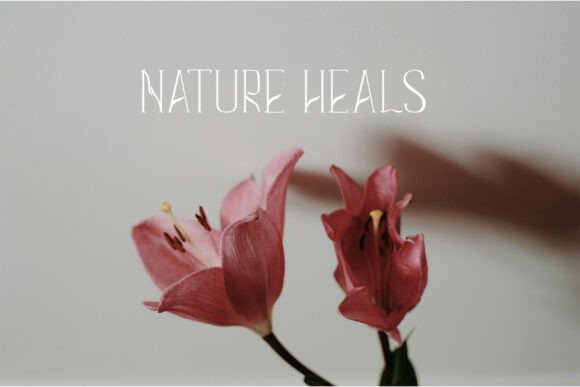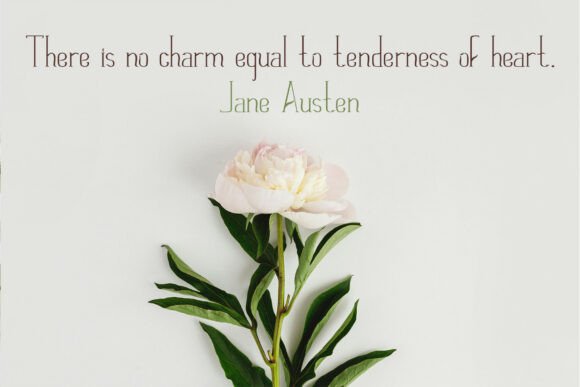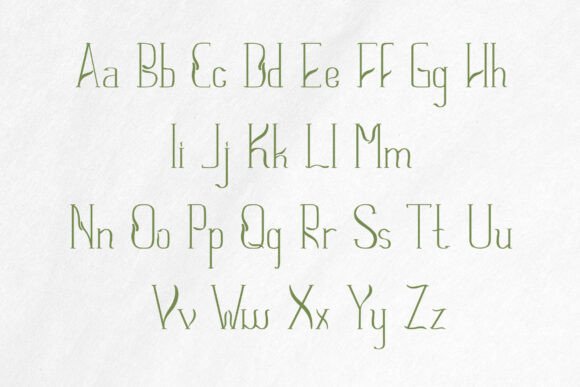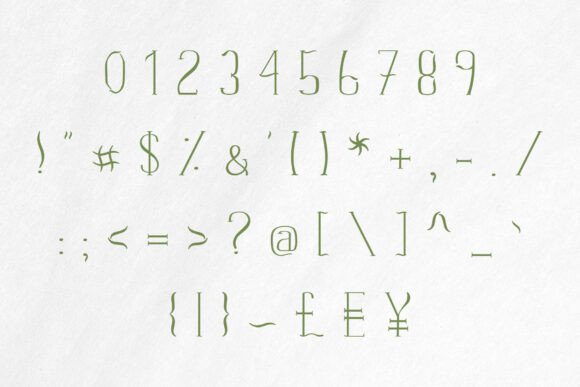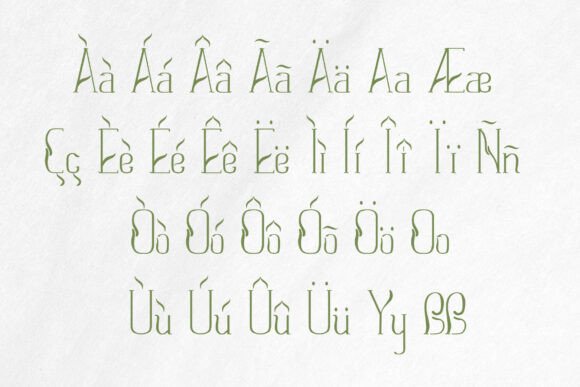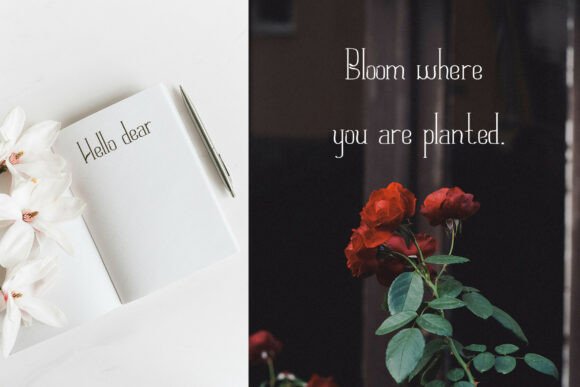
Introduction to Slim Lines Font
As a designer, you know the thrill of that perfect moment when a font choice elevates your entire project. It’s the instant when the words on the page come alive, and the message resonates with your audience. For me, that moment often comes when I’m working on a luxury branding project, and I need a font that exudes sophistication and elegance. That’s where the Slim Lines Font comes in – a game-changing design resource that’s been a staple in my creative arsenal.
Key Features of Slim Lines Font
- Unique design aesthetic with a modern and sleek appearance, ideal for creative projects and designs.
- Perfect for use in logos, branding materials, and other design elements where a clean and minimalist aesthetic is desired.
Honest Review: Slim Lines Font
As a designer, I’m always on the lookout for high-quality design resources that can elevate my creative projects. The Slim Lines Font has caught my attention, and I’m excited to share my honest review with you.
The font’s transparent background makes it easy to customize and pair with any color scheme, and its modern aesthetic is sure to make a statement in any design. I also appreciate the high quality of the font, which ensures that it looks crisp and clear on any device.
Limitations: ⚠️ While the Slim Lines Font is an excellent addition to any designer’s toolkit, it may not be suitable for projects that require a more traditional or classic look. Additionally, the font’s minimalist design may not be ideal for projects that require a lot of visual interest or complexity.
Overall, I’m impressed with the Slim Lines Font and would definitely recommend it to designers looking for a high-quality, versatile font for their creative projects.
- Modern aesthetic
- Wide range of applications
Use Slim Lines Font in a variety of creative projects, such as:
- Logos
- Flyers
Alternatives to Slim Lines Font
Nova Sans
Nova Sans is a high-quality sans-serif font ideal for creative projects requiring a clean and modern look. It’s available for free download and can be used on various design resources with a transparent background. This font is perfect for digital displays, signage, and marketing materials. Compared to Slim Lines Font, Nova Sans has a more minimalist approach, making it suitable for designs that need a subtle yet elegant feel.
Is Slim Lines Font a high-quality design resource?
Yes, Slim Lines Font is a high-quality design resource that is carefully crafted to provide a clean and modern look for your creative projects. The font is designed to be versatile and can be used for a wide range of applications, from branding and advertising to editorial and publishing.